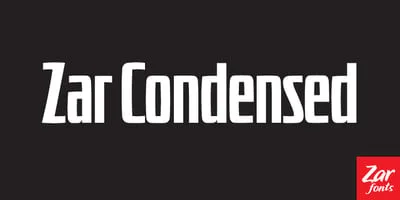
Zar Condensed Font
Zar Condensed Font is perfect for space-efficient newspaper layouts, compact magazine headlines, narrow column designs, urban transportation signage, condensed corporate reports, efficient data presentations, streamlined interface designs, and space-optimized marketing materials. This versatile typeface excels in applications where space efficiency and maximum readability are essential.
What makes Zar Condensed Font so exciting is its exceptional ability to deliver maximum information impact in minimal space through sleek, compressed letterforms that embody the efficiency of modern design and the precision of space-conscious typography. The font features narrow character shapes with condensed proportions and streamlined styling that evoke images of efficient city planning, optimized layouts, and the smart use of limited space. Its efficiency-focused design philosophy combines space-saving functionality with contemporary clarity, making it perfect for media brands seeking to convey information density, design efficiency, and connection to urban communities and space-conscious design culture.
Zar Condensed Font belongs to the condensed sans-serif font family, specifically designed for space-efficient and high-density information branding applications. This typeface family emphasizes compact visual impact through space-saving styling and efficient character elements, ensuring optimal space utilization across various publishing and information design-focused projects.
Maximize your design efficiency with Zar Condensed Font, a typeface that embodies the smart precision of space-conscious design and information optimization. This streamlined font delivers exceptional efficiency for compact applications, featuring comprehensive character sets with space-saving symbols and condensed punctuation marks that capture the essence of design optimization and information density. Its efficiently crafted letterforms maintain excellent readability while preserving the authentic condensed aesthetic across various sizes, from small data tables to large urban signage displays. The font's distinctive space-efficient personality makes it invaluable for designers creating media brands, information materials, and compact content where conveying efficiency, clarity, and space optimization is crucial for engaging urban audiences and design communities seeking smart, space-conscious typography solutions and maximum information impact.